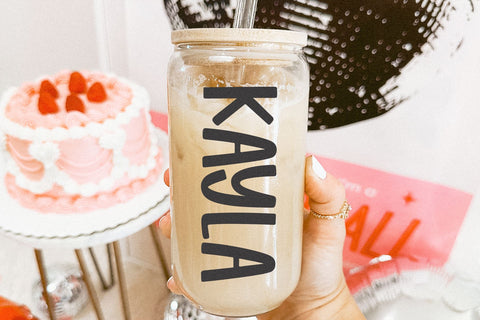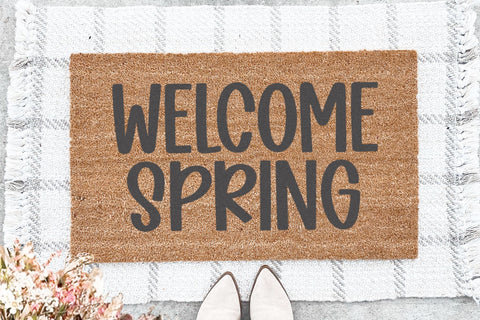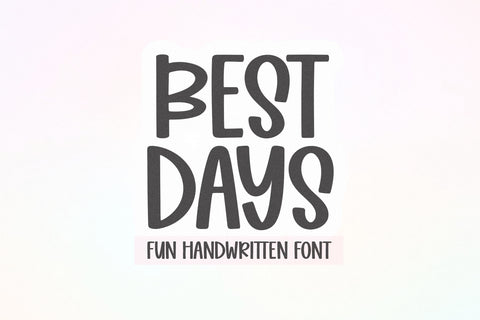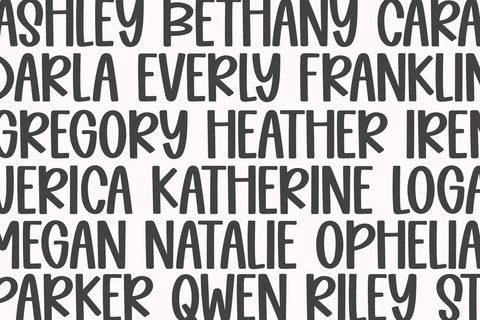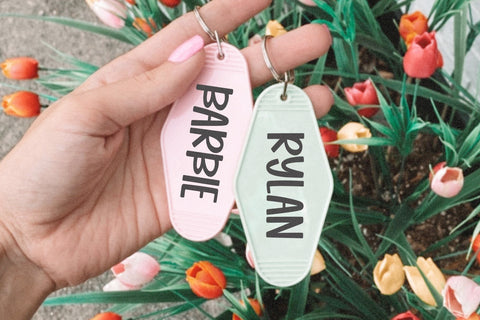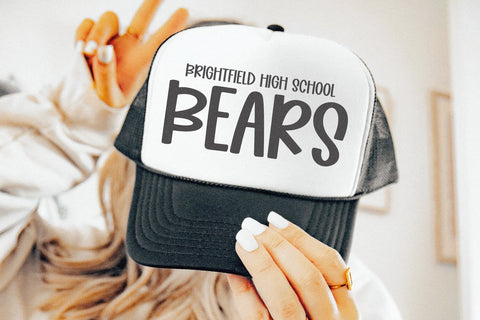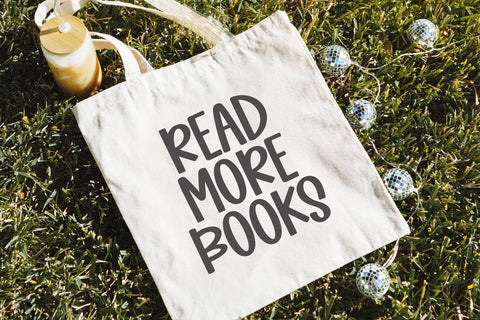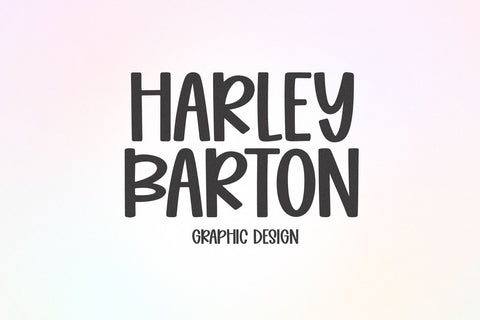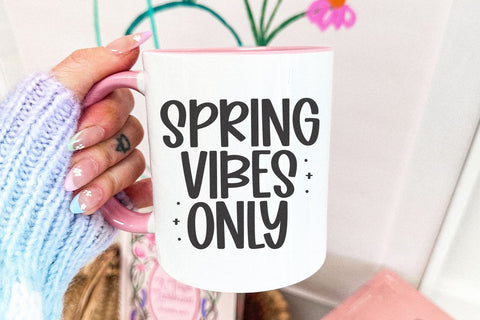
Best Days - Fun Handwritten Font
Best Days is a fun handwritten font!
This font is perfect for cricut projects, canva, procreate, stickers, shirts, teachers, logos, laser projects and more!